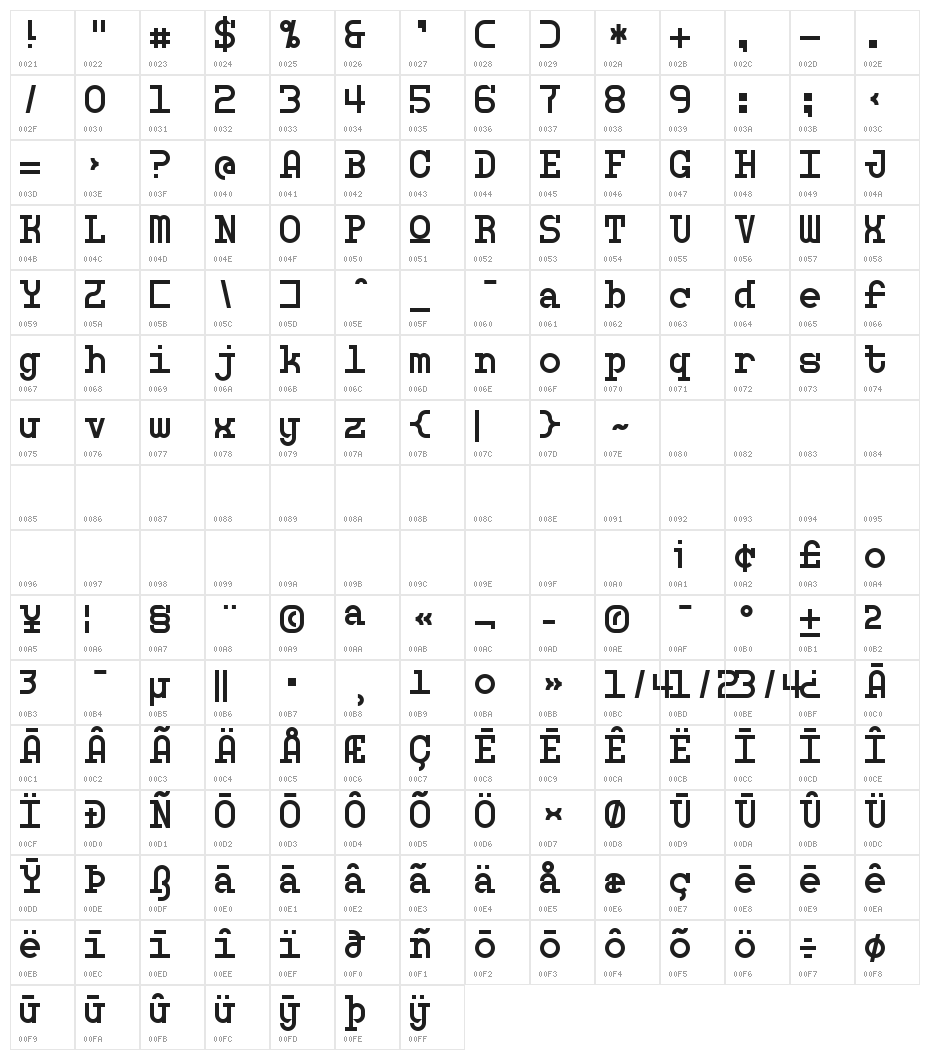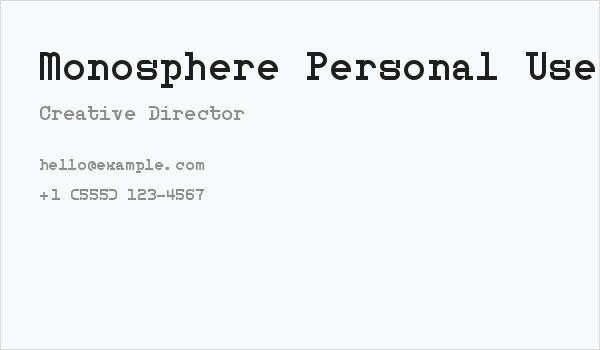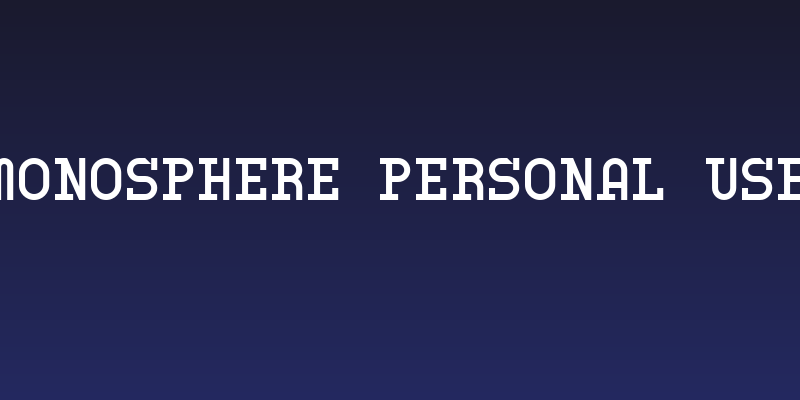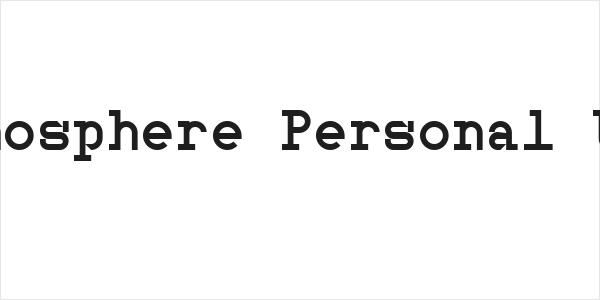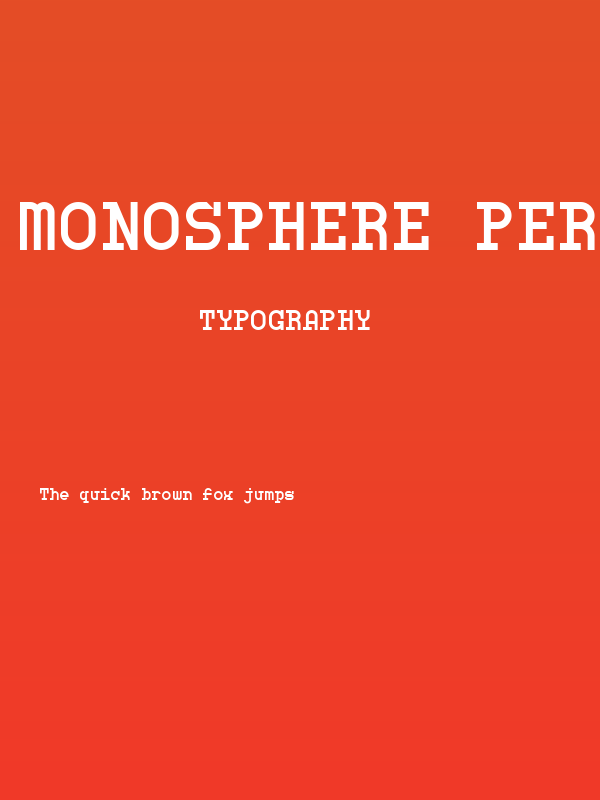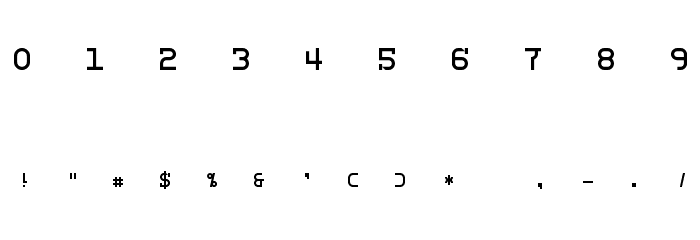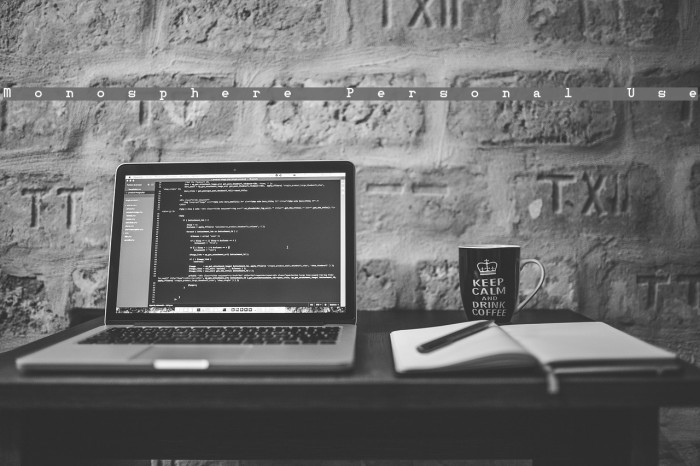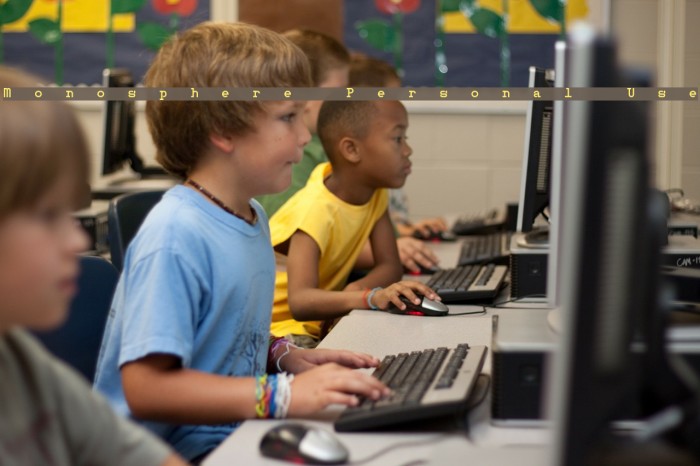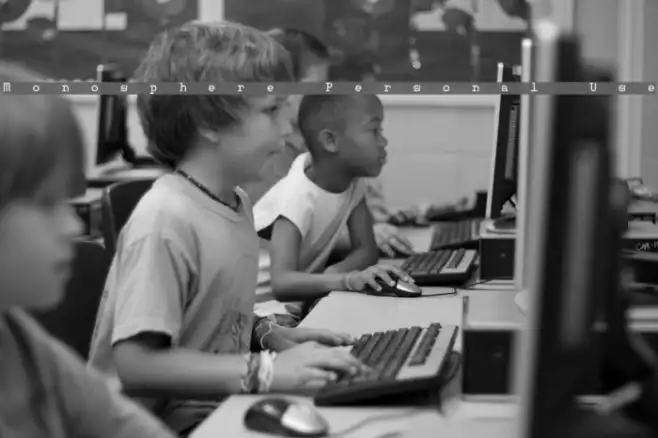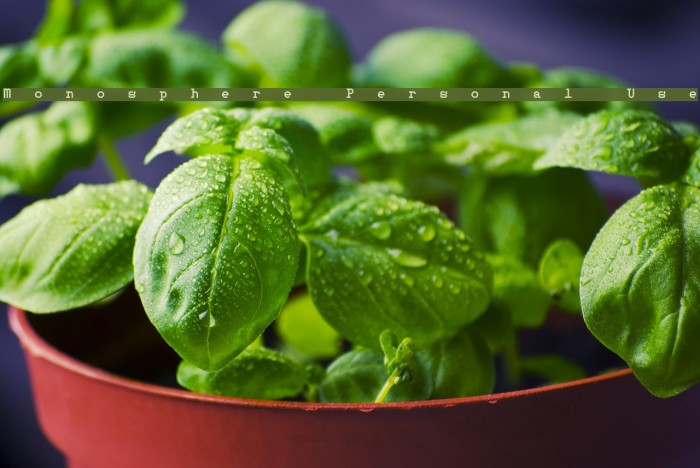
Monosphere Personal Use Font
Monosphere Personal Use Description
This font features a monospaced design, characterized by uniform character width, which is ideal for coding and tabular data. Each letter and symbol is distinct, with a mechanical and precise appearance. The uppercase letters are bold and clear, while the lowercase letters maintain a similar width, ensuring consistency across text. Numbers are straightforward and easily distinguishable, making them suitable for technical documentation. The special characters are well-defined, enhancing readability in complex strings of code or data. Overall, the font's structure is clean and functional, with a focus on clarity and uniformity.
| Use Case | Coding, Technical documentation, Data tables |
| Proposed Projects | Suitable for coding environments, technical documentation, data tables, and any project requiring precise alignment. |